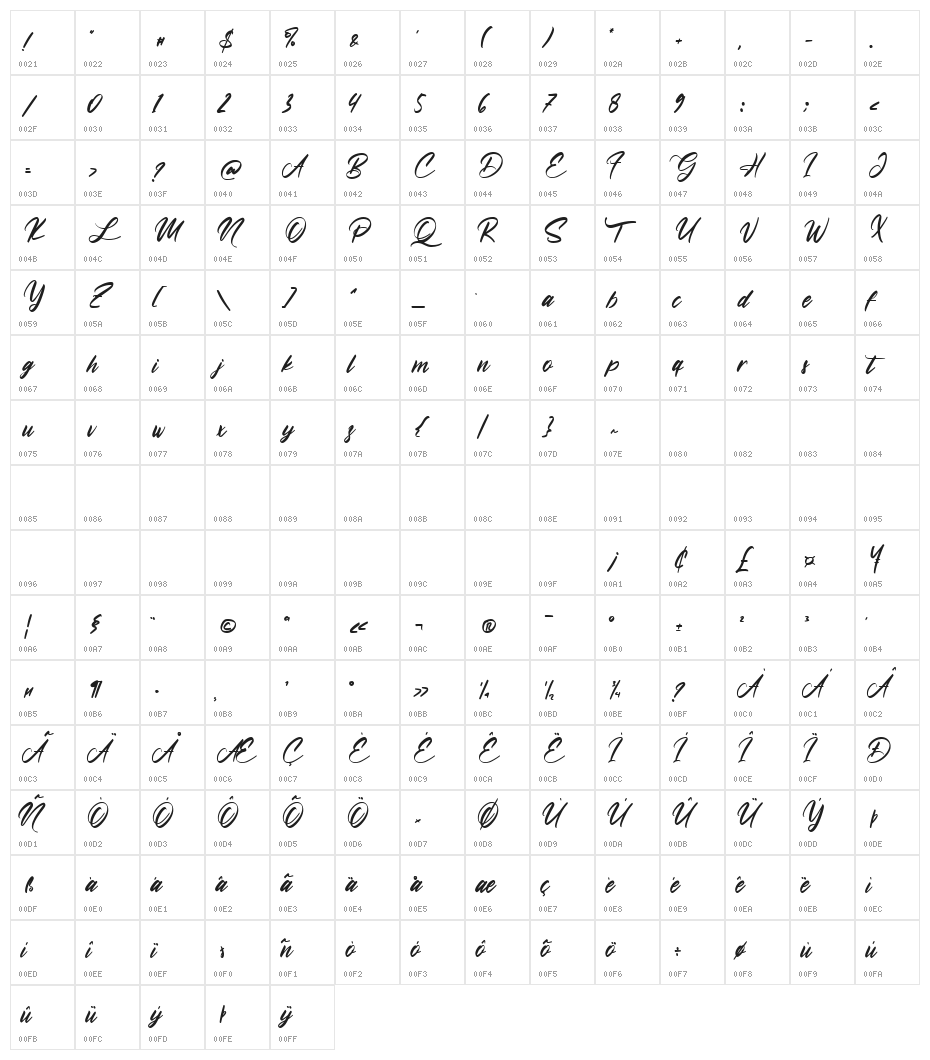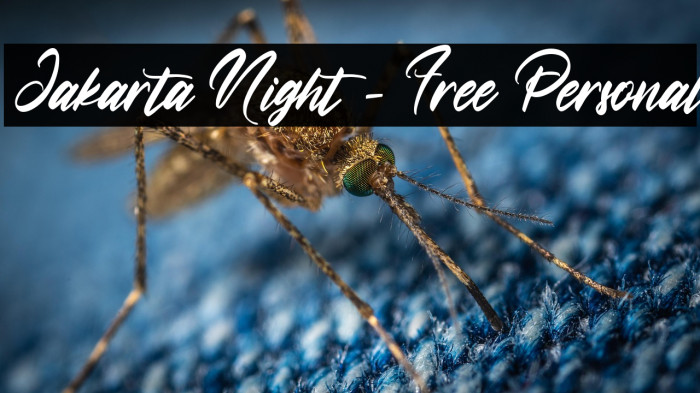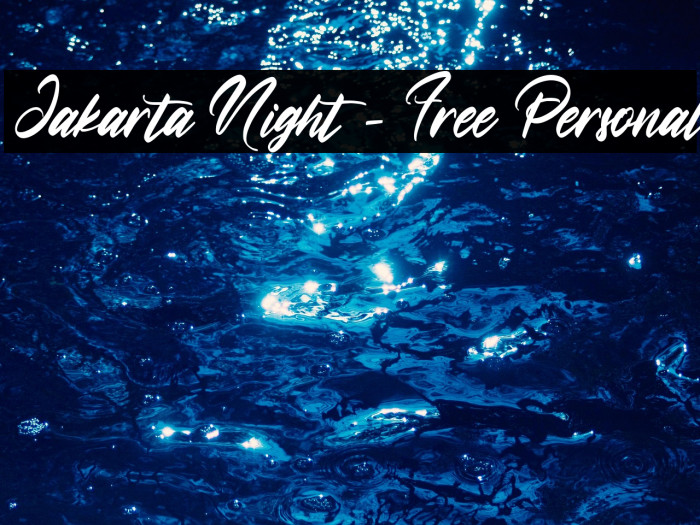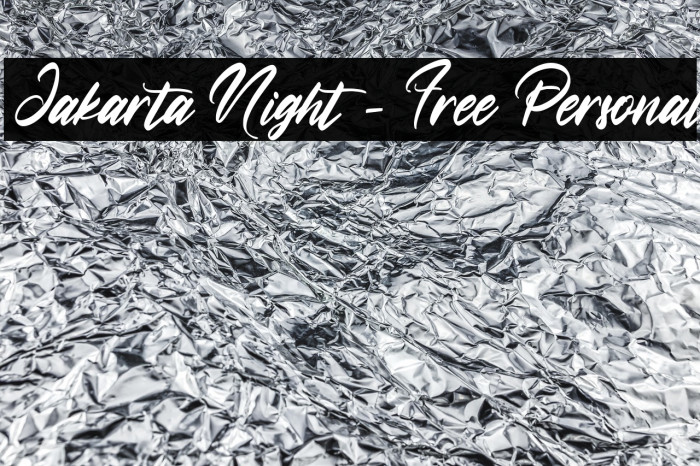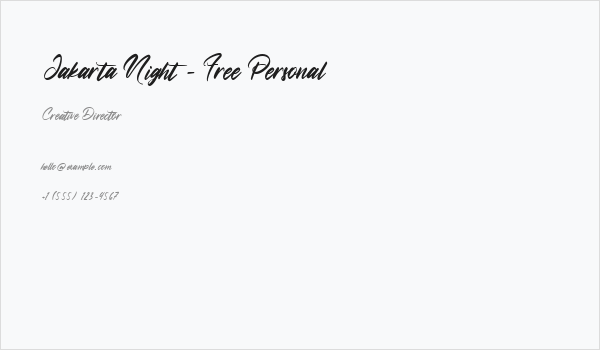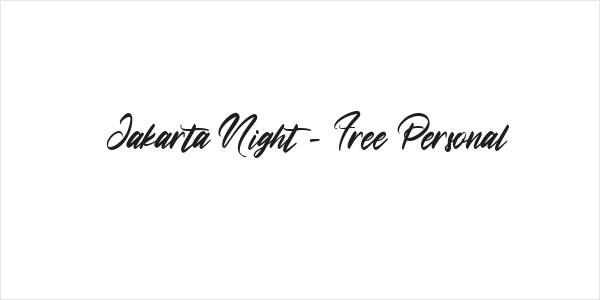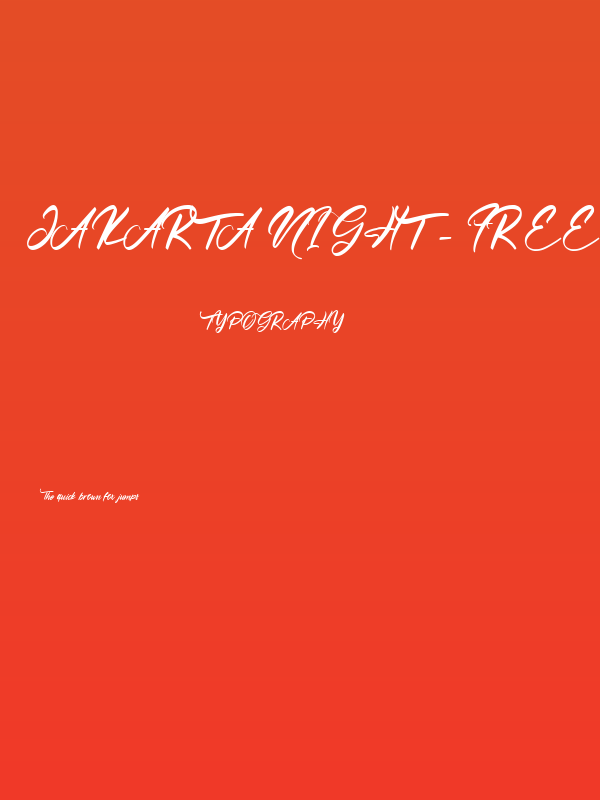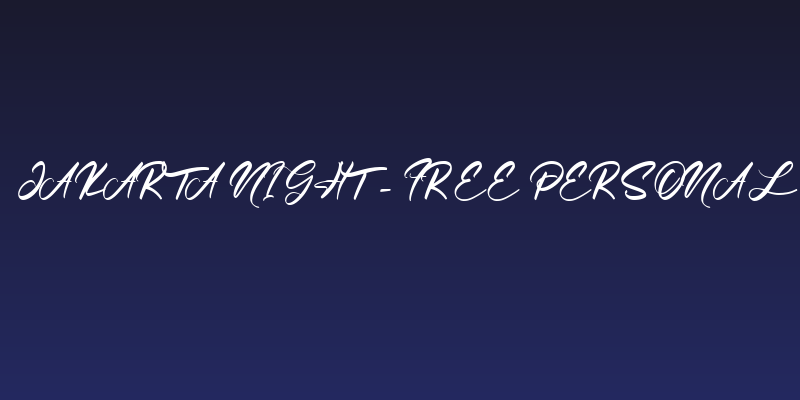
Jakarta Night - Free Personal Font
Jakarta Night - Free Personal Description
This font features a dynamic and expressive script style, characterized by its flowing, cursive letterforms. The uppercase letters are bold and elegant, with sweeping curves and flourishes that give a sense of movement and sophistication. The lowercase letters maintain a consistent style, with smooth connections and a slightly more compact form, enhancing readability while retaining the decorative flair. Numbers and special characters are crafted to match the overall aesthetic, ensuring a cohesive look across all text. The font's design is ideal for creating a sense of elegance and creativity, making it suitable for a variety of artistic and formal applications.
| Proposed Projects | Ideal for wedding invitations, branding, greeting cards, and elegant signage. |